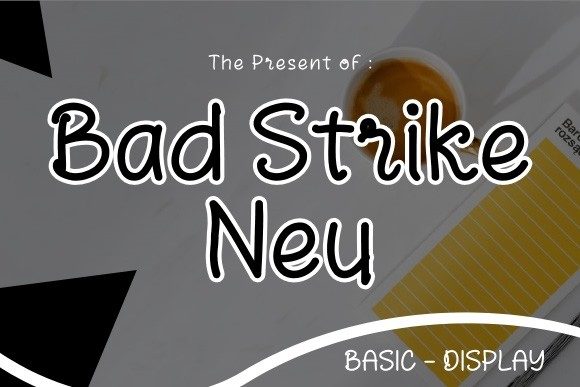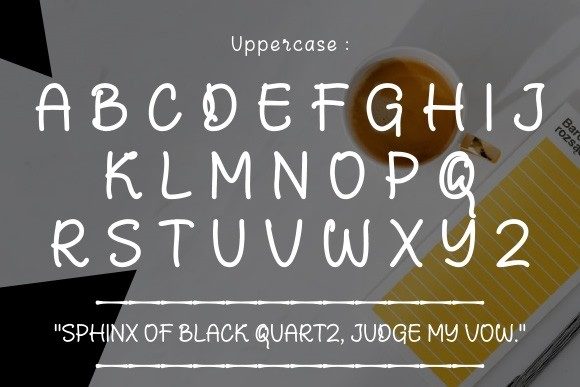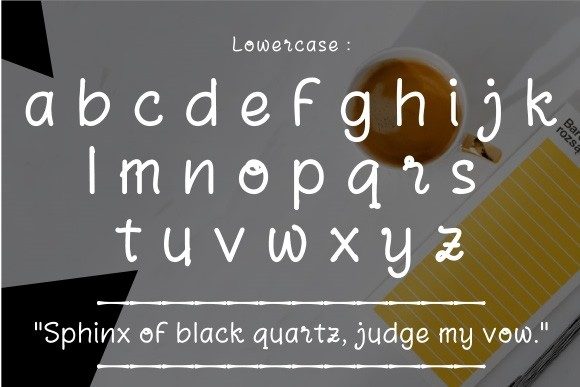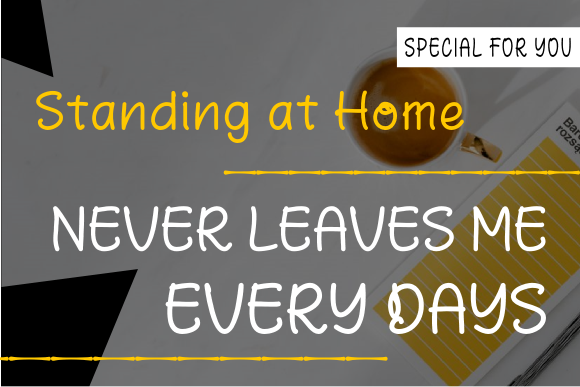
Bad Strike Neu Font
About Bad Strike Neu Font
Bad Strike Neu is a simple and clean handwritten font. It will look stunning on any poster, flyer or print.